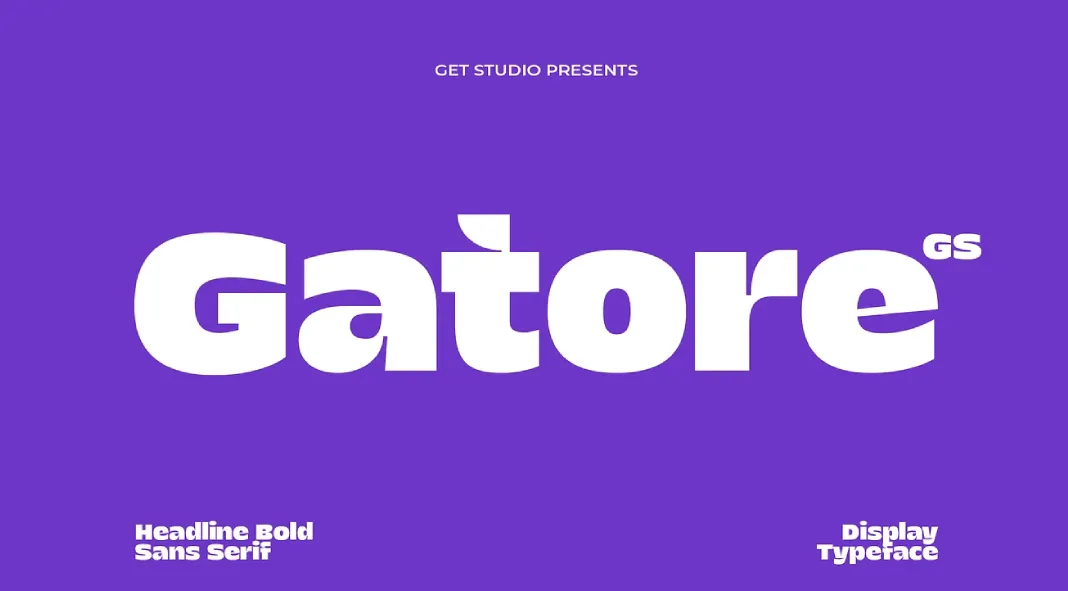
With Get Studio’s Gatore font, you can make a bold statement.
The Gatore font by Get Studio encapsulates a bold and confident aesthetic that is perfect for modern branding and headline applications. This sans-serif display typeface is designed to make a statement, with its clean lines, thick letterforms, and strong presence. Gatore is a declaration of strength and clarity.
Gatore Font by Get Studio
Design and Features
Gatore’s most striking feature is its boldness. The thick, robust letterforms are meticulously crafted to exude strength and stability, making it an ideal choice for designs that require a commanding presence. Whether used in advertising, posters, or logos, Gatore demands attention and leaves a lasting impression.
The font offers both uppercase and lowercase letters, providing versatility in design. The inclusion of numerals and punctuation ensures that Gatore is not just for headlines but can be effectively used in various text settings. Its multilingual support further enhances its utility, making it a great choice for global brands and projects.
Aesthetic Appeal
One of the key aspects of Gatore is its modernity. The clean lines and thick strokes give it a contemporary feel that resonates with today’s design trends. It’s a font that feels at home in digital environments, yet it carries enough weight to make an impact in print as well. The subtle curves and geometric precision of the characters add a layer of sophistication, balancing the boldness with elegance.
Usability
Gatore is highly versatile in its application. Its strong, bold nature makes it ideal for headlines, logos, and branding materials. It can also be used effectively in editorial design, where a modern and authoritative tone is needed. The font’s clean design ensures legibility even at smaller sizes, making it a practical choice for a wide range of design projects.
Gatore is a compelling choice for designers looking to add a touch of strength and modernity to their work. Its bold, clean lines make it perfect for commanding attention, while its versatility ensures it can be used across various mediums and languages. Whether you’re working on a cutting-edge digital campaign or a striking print project, Gatore is a font that will help your designs stand out with confidence and clarity.